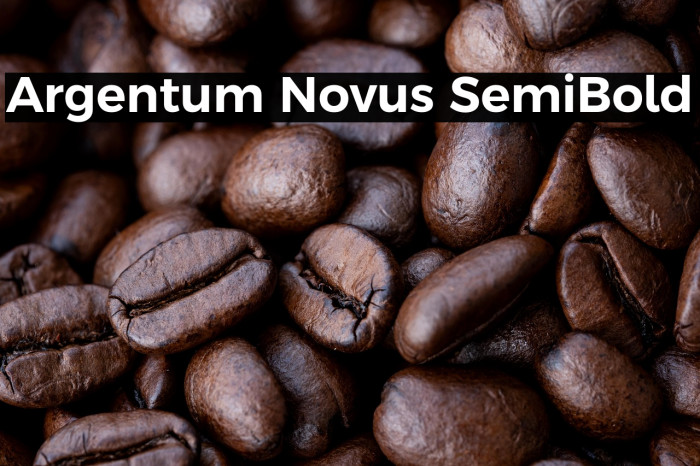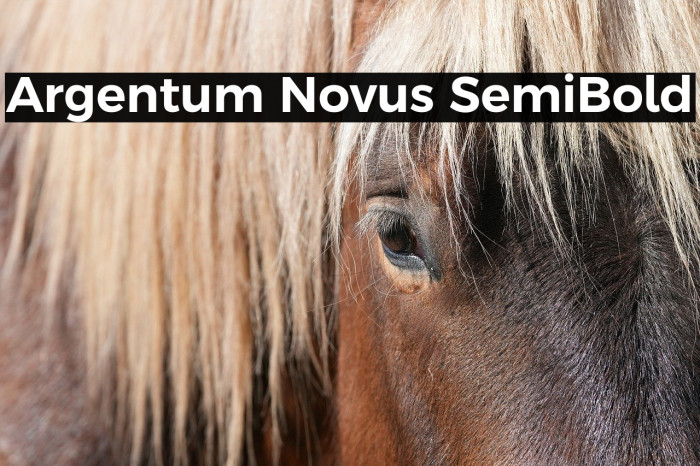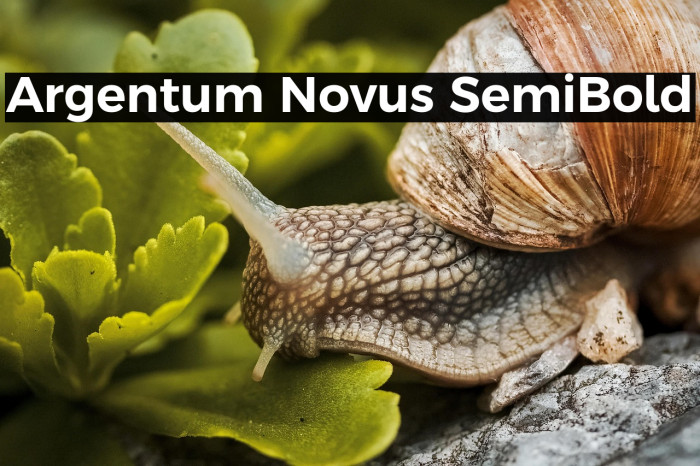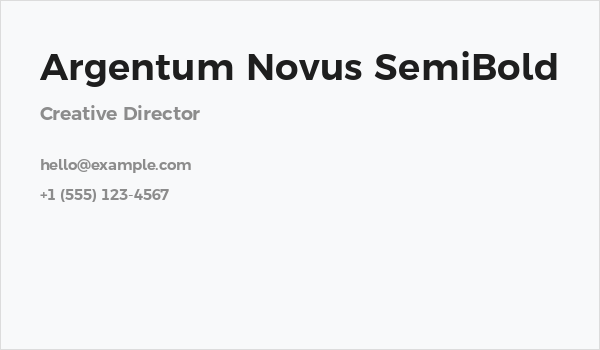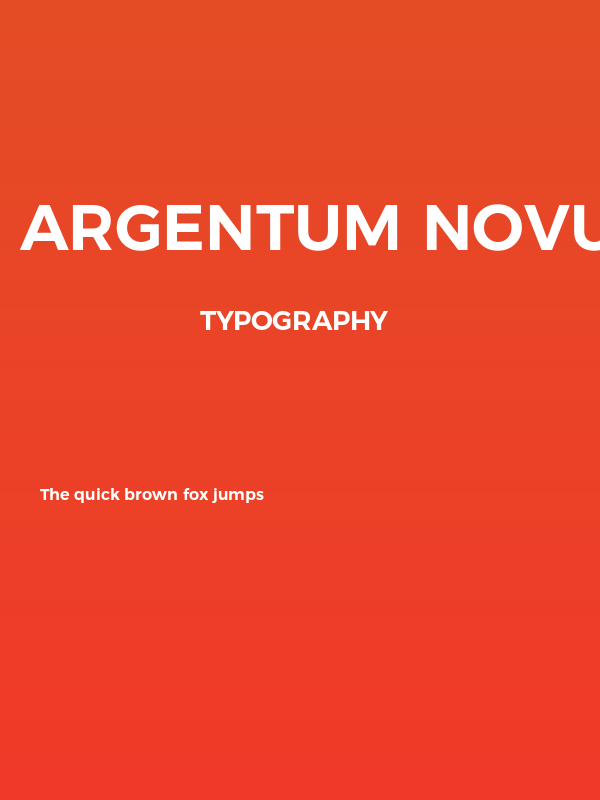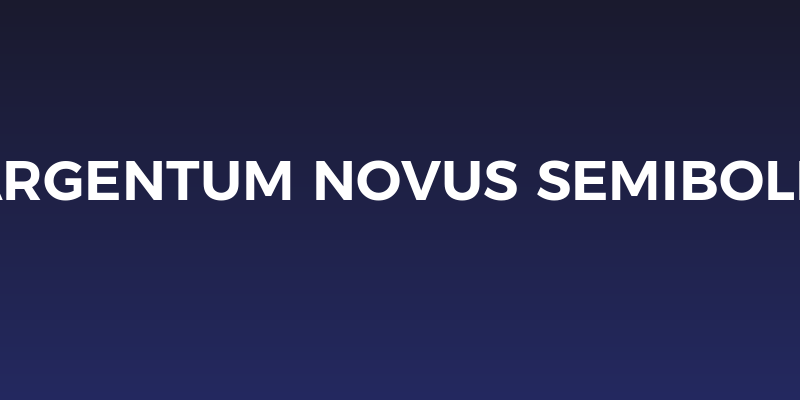
Argentum Novus SemiBold Font
Argentum Novus SemiBold Description
This font features a clean and modern sans-serif design with a semi-bold weight, offering a strong presence while maintaining readability. The characters are well-proportioned with a consistent stroke width, providing a balanced and harmonious appearance. The uppercase letters are bold and assertive, while the lowercase letters maintain a friendly and approachable feel. The numerals are clear and easily distinguishable, making them suitable for various applications. Special characters are designed with the same attention to detail, ensuring a cohesive look across all glyphs.
| Proposed Projects | Ideal for branding, advertising, web design, and editorial projects where a modern and professional look is desired. |